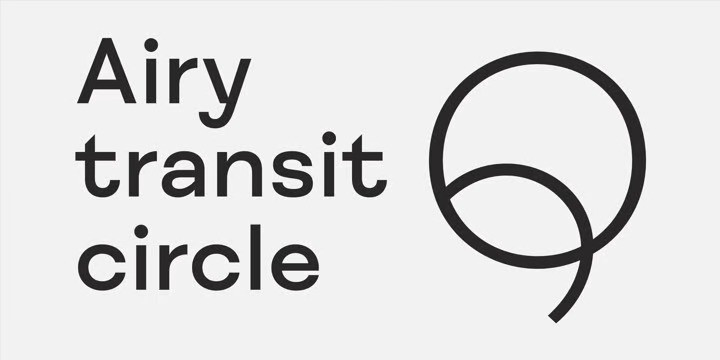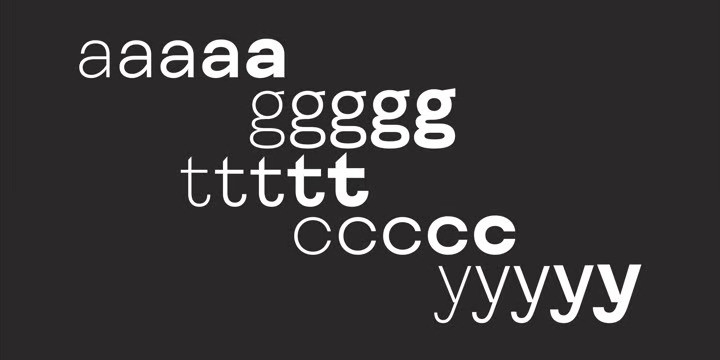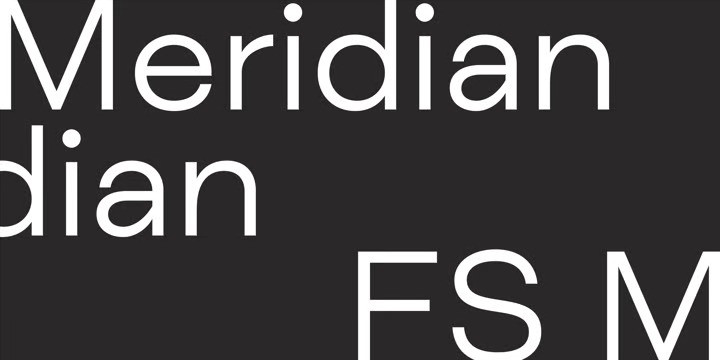
FS Meridian Font
FS Meridian Sans Serif Font Family is the timeless typeface.
FS Meridian a rhythmic sans serif which takes inspiration from the precise yet imperfect nature of time. From a geometric base, its rounded forms veer and extend, creating unexpected humanistic shapes – while the straight terminals remain reliably rigid. This combination of forms gives this grotesque sans serif a pleasingly dynamic rhythm, every time it’s read.